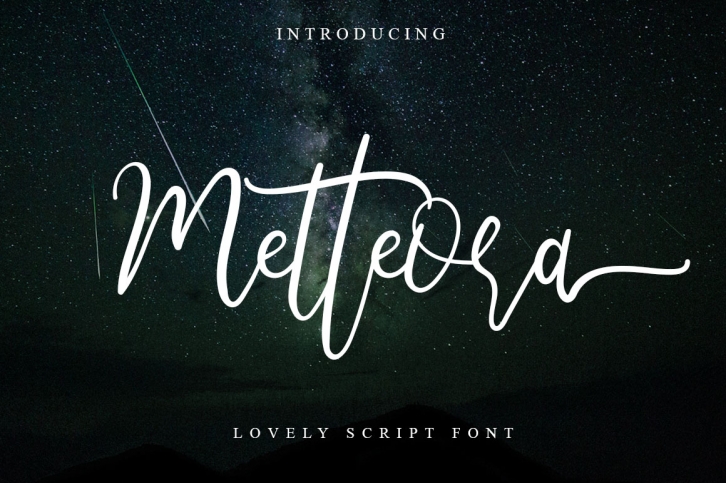
Metteora lovely script is a great font that was designed by Haksen. Imagine the amount of combinations you can create using this font! The archive is 3.5 MB and it was released on January 2, 2019. Metteora lovely script looks beautiful on wedding invitations, greeting cards, logos, posters, labels, t-shirt designs, logos, business cards and is perfect for use in ink or watercolor works, fashion, magazines, packaging and food menus, children's books and more!